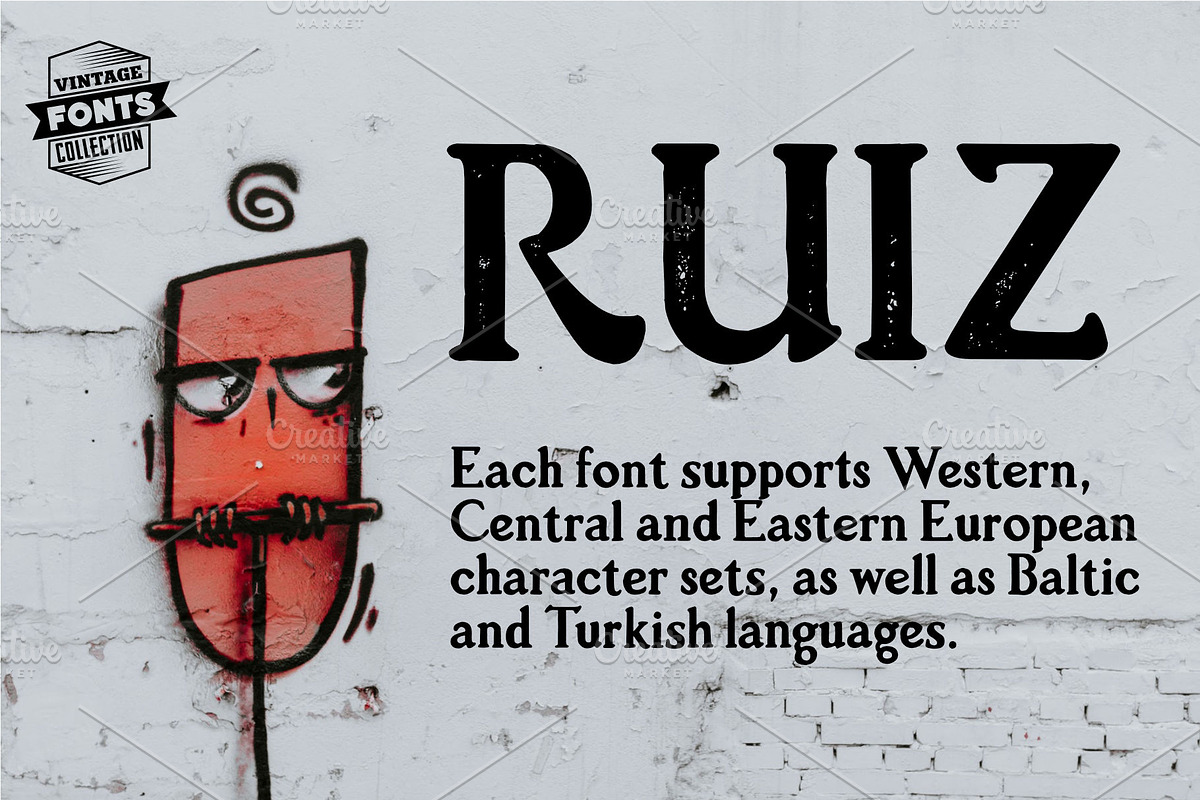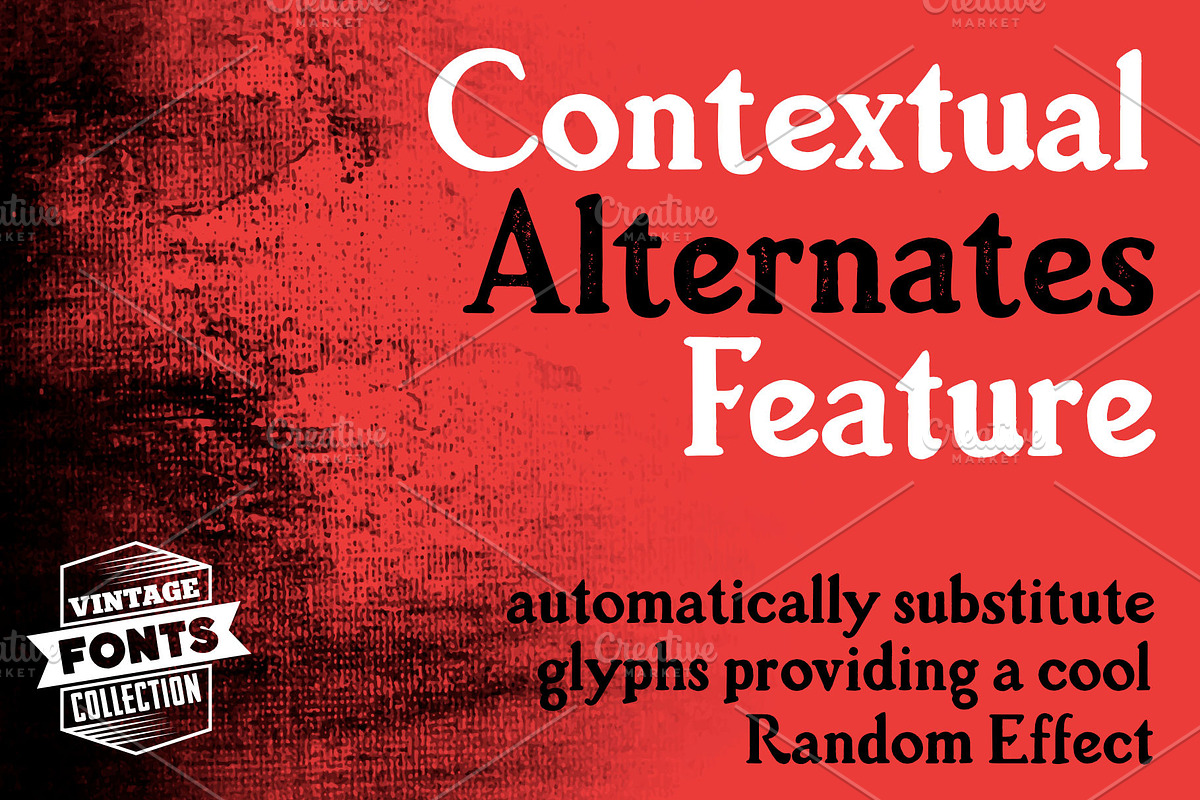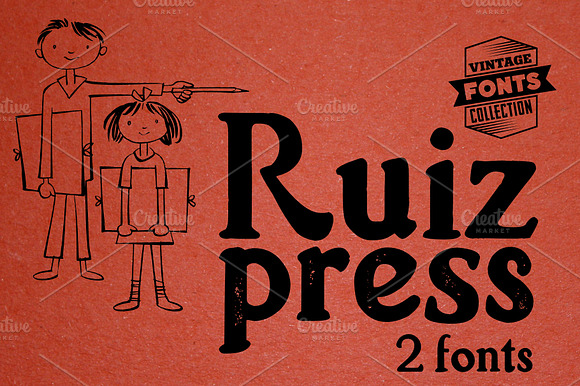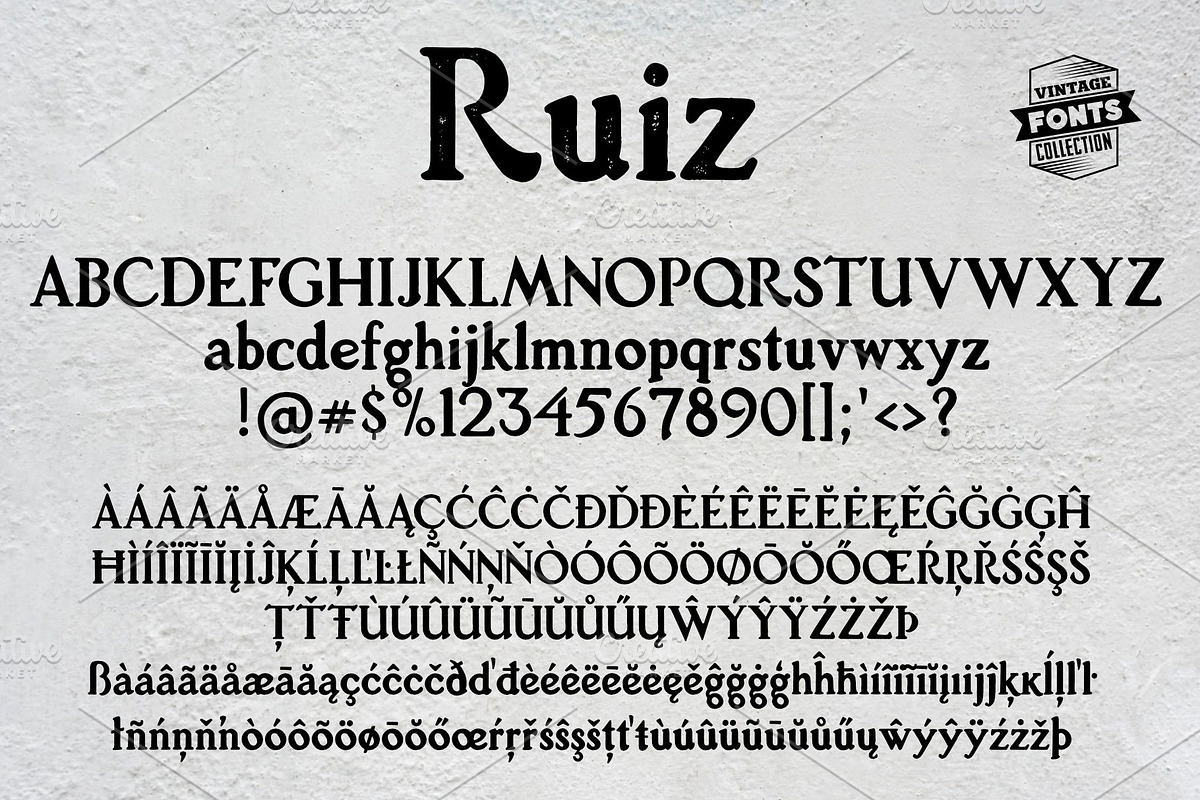
Ruiz - 2 vintage fonts
Ruiz is a set of 2 hand-drawn fonts inspired by vintage ads, old newspapers and retro sign painting. Every lowercase letter has three variations. When the font is used in OpenType-savvy applications, the 3 variants of glyphs are automatically alternated to achieve a random-like effect.
- Every lowercase letter has three variations.
- When the font is used in OpenType-savvy applications, the 3 variants of glyphs are automatically alternated to achieve a random-like effect.